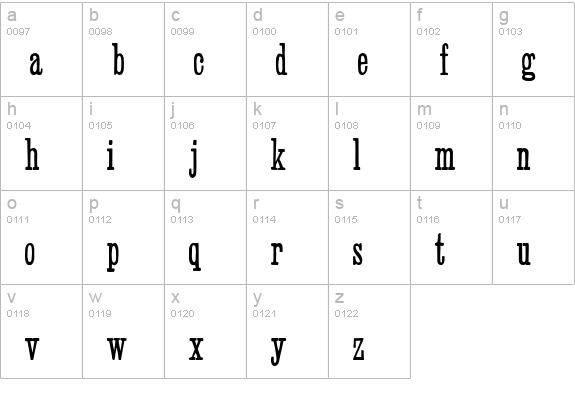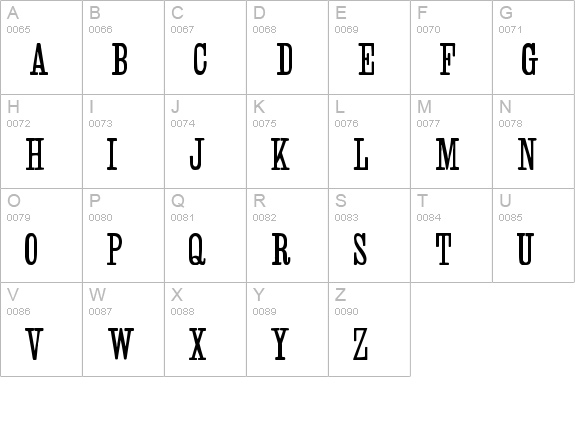
Slab Serif HPLHS Font Details
Slab Serif HPLHS font is a remarkable typeface that effortlessly captures attention with its bold and distinct appearance. This font is a perfect blend of modern sophistication and classic charm, making it ideal for a wide range of design projects. With its sturdy and confident letterforms, Slab Serif HPLHS exudes a sense of reliability and professionalism. Each character is meticulously crafted, showcasing sharp serifs and clean lines that add a touch of elegance to any text. Whether it's used in headlines, logos, posters, or branding materials, this font commands attention and leaves a lasting impression. What sets Slab Serif HPLHS font apart is its versatility. It seamlessly adapts to various design styles, from vintage-inspired to contemporary aesthetics. Its strong presence and balanced proportions make it equally suitable for both digital and print media, ensuring legibility and impact across different platforms. And the best part? Slab Serif HPLHS font is absolutely free. That's right, you can freely download this extraordinary typeface at FontsMarket.com. Designed with the utmost care and attention to detail, this font is a true gem for designers and typographers alike. Don't miss the opportunity to enhance your projects with the timeless beauty of Slab Serif HPLHS font.